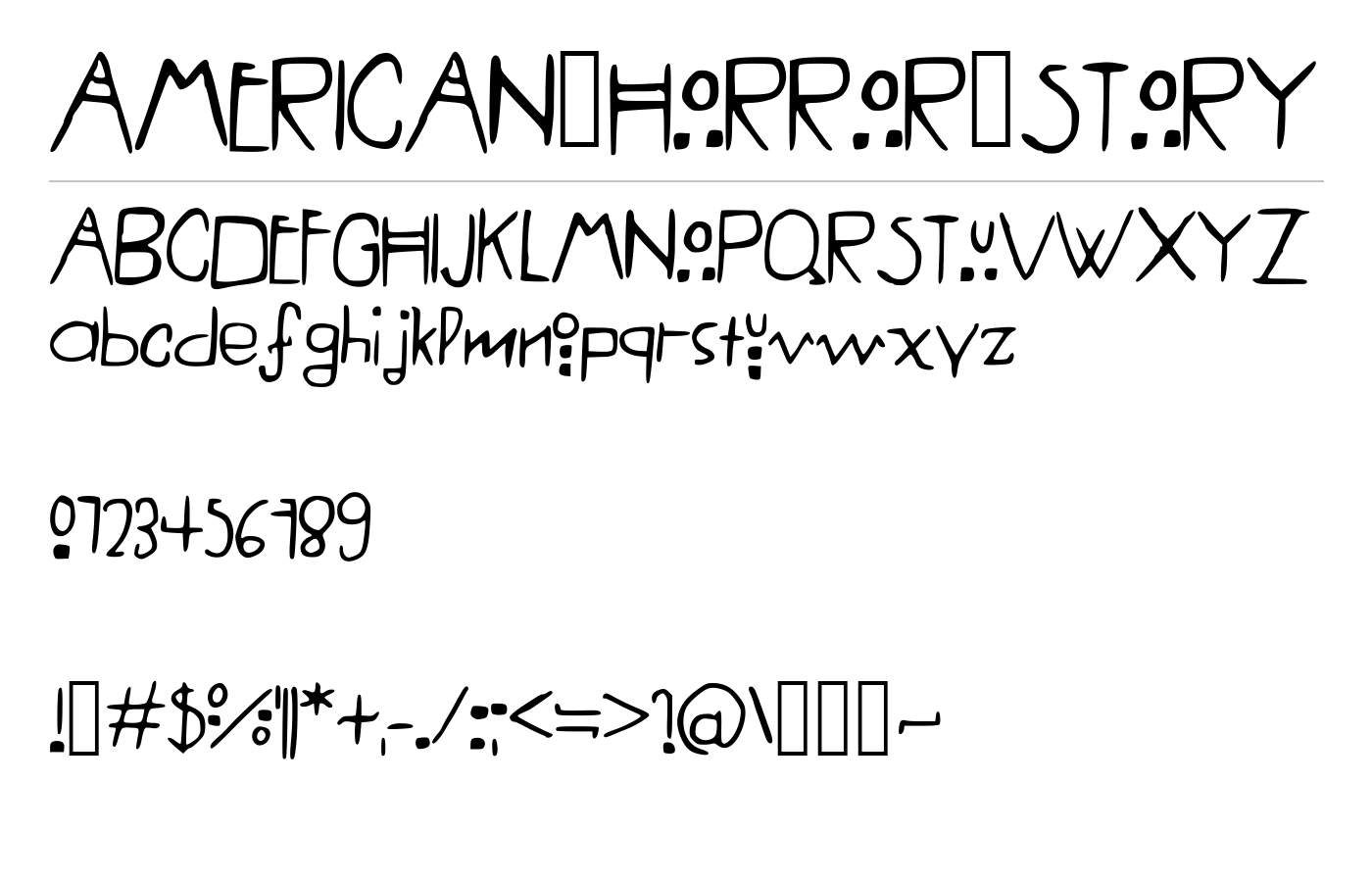
American Horror Story is a quirky, hand-drawn sans serif font with irregular, narrow letterforms and playful, slightly eerie shapes. Its uneven strokes and whimsical details give it a spooky, informal vibe perfect for Halloween themes, horror-related projects, or anything aiming for a creepy yet fun aesthetic. This font works best in headlines, posters, and branding where a striking, unconventional style grabs attention.
AMERICAN_HORROR_STORY Font
About AMERICAN_HORROR_STORY Font